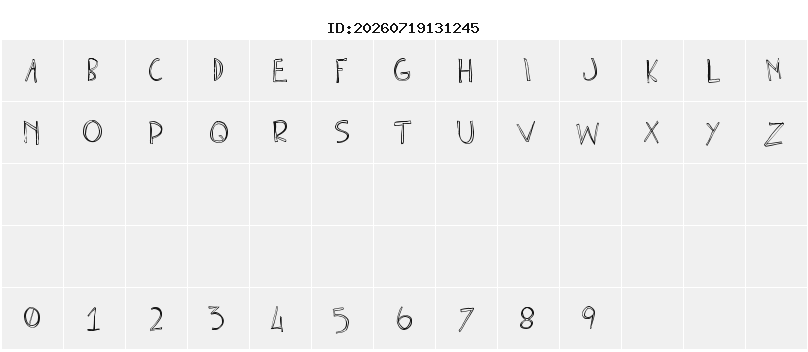
Clono uno Preview
• Font Name: Clono uno
• Full Font Name: Clono uno
About Clono uno.otf
Clono uno.otf is a modern, elegant sans-serif font designed for ultimate readability and visual harmony. Perfect for branding, headlines, web design, and print materials.